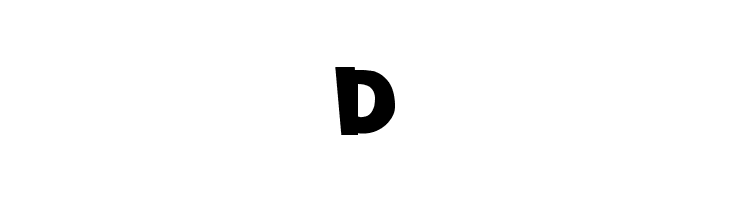
( A personally designed font that uses chunky lettering to create a fun and cool style that calls back to the wild and irreverent 90s style. )
A playful, bold font with irregular, dynamic letterforms.